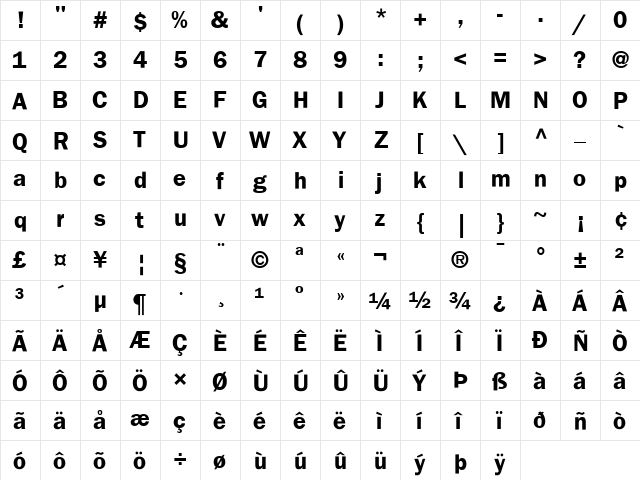
UnYetgul Bold
| Designer | Koaunghi Un |
Design Context for UnYetgul Typeface
UnYetgul takes a measured approach to typography — its balanced proportions and neutral character make it a reliable workhorse for both digital and print work. The heavy weight commands attention and anchors typographic hierarchies.